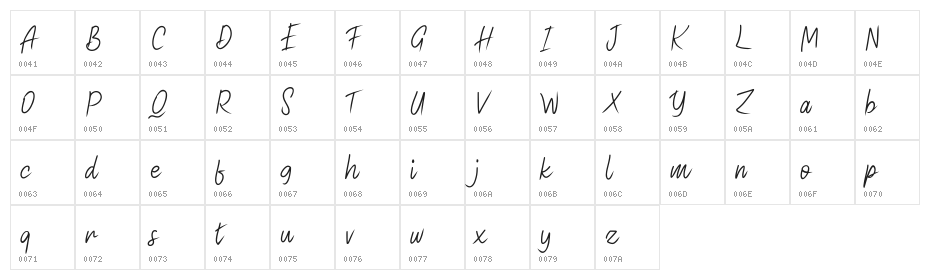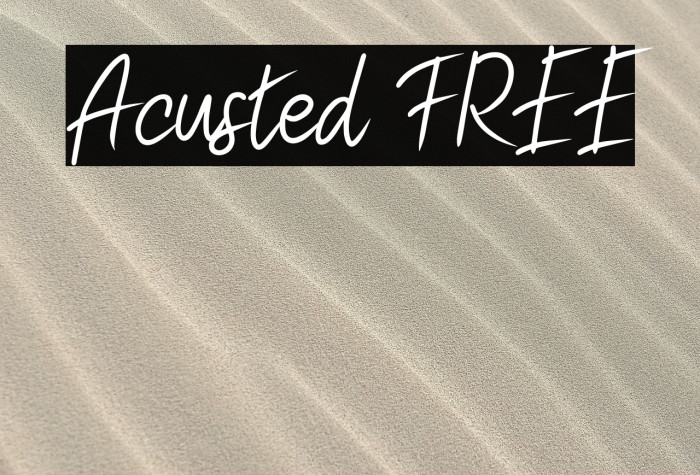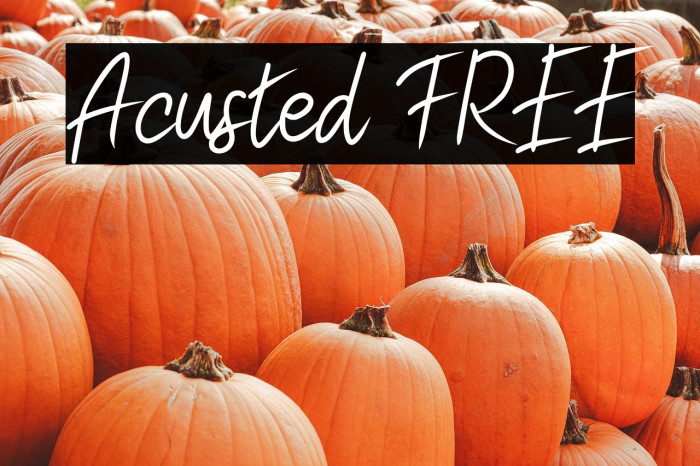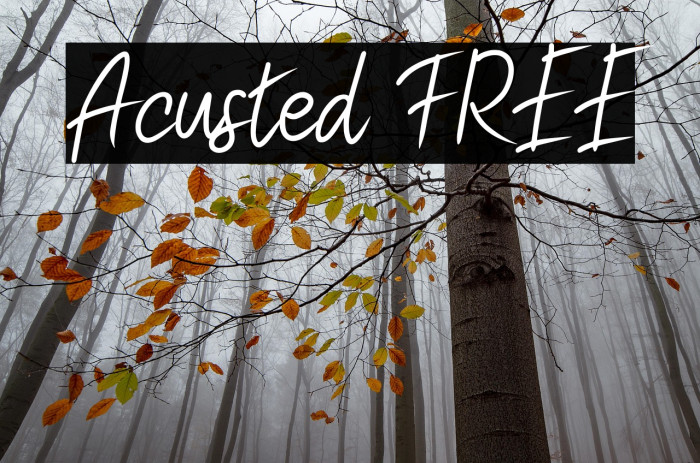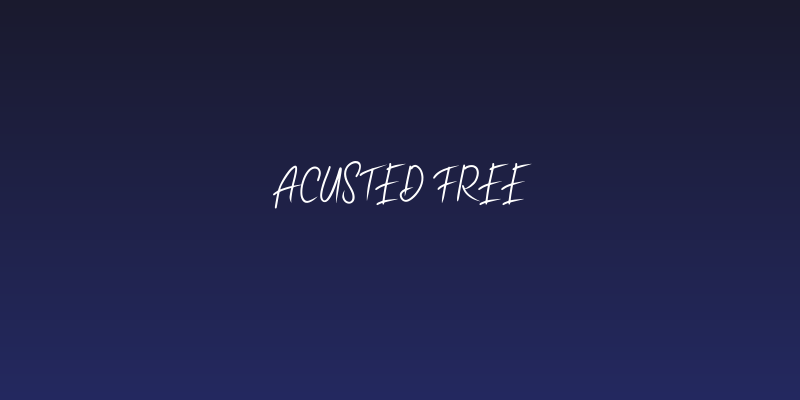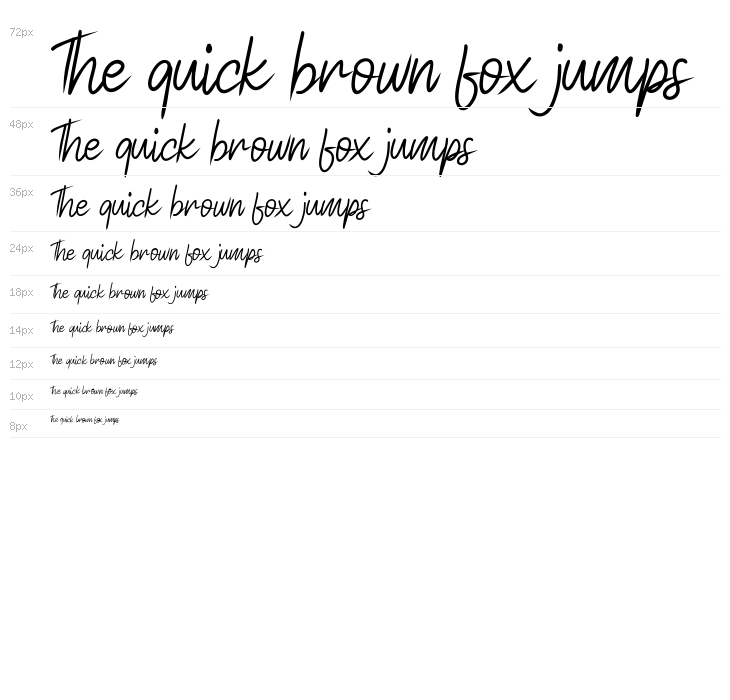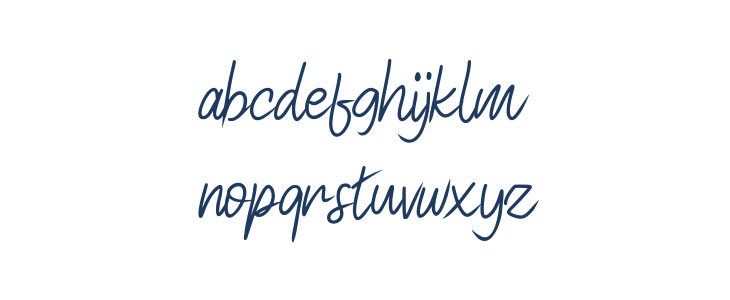
Acusted FREE Font
Acusted FREE Description
This font features a dynamic and fluid script style, characterized by its elegant and flowing letterforms. The uppercase letters are tall and slightly slanted, giving a sense of movement and grace. The lowercase letters maintain a cohesive and connected appearance, enhancing the handwritten feel. The strokes are smooth and consistent, with moderate contrast between thick and thin lines. This font exudes a sense of sophistication and creativity, making it ideal for projects that require a personal touch.
| Use Case | Logos, Invitations, Artistic projects |
| Proposed Projects | Ideal for wedding invitations, greeting cards, personal branding, and artistic projects. |